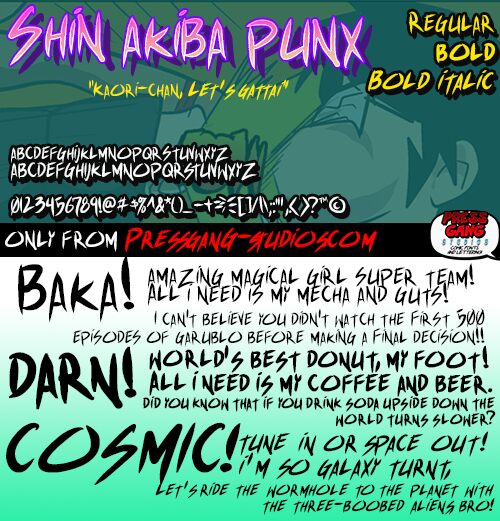
Shin Akiba Punx Bold Italic
Shin Akiba Punx Bold Italic by Press Gang Studios is a free brush graffiti font with tall, slashing letters and a hard forward drive. Its changing stroke widths, pointed joins, and abrupt cuts give the lettering the raw speed of marker tags rather than a polished sign.
Merchandise is an especially good medium for this aggressive style. It can turn skate graphics, punk record packaging, and streetwear branding into something that feels drawn directly onto the surface. On magazine covers or music editorials, the lettering can function as both headline and graphic image, echoing the marks of gig posters and sticker art.